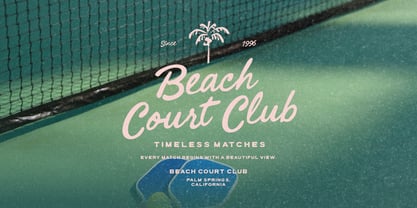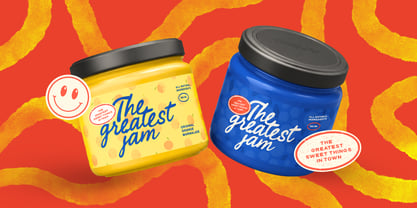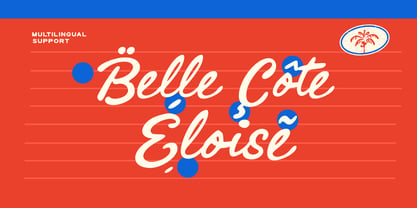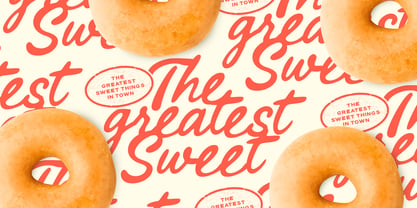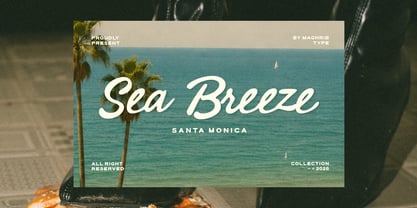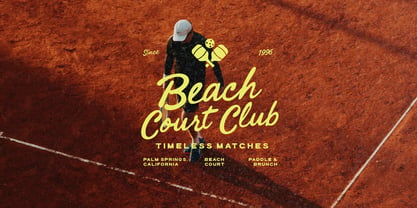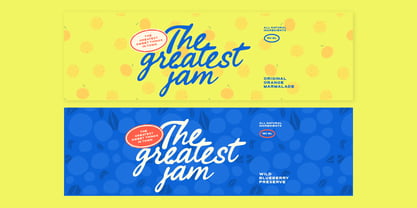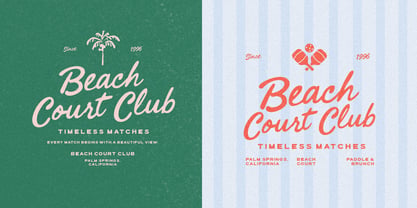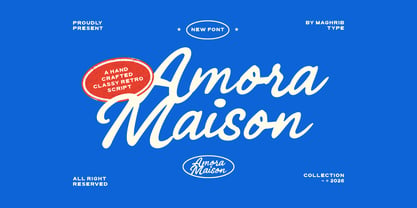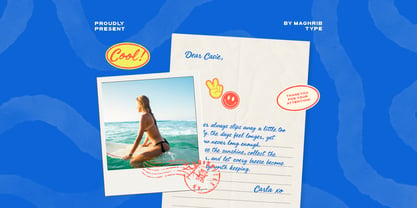
Amora Maison
Die Schriftfamilie Amora Maison wurde von Rizky Setyaludin entworfen und von Maghrib Type veröffentlicht. Amora Maison enthält 2 Stile und Familienpaketoptionen. Mehr über diese Familie
Amora Maison is a handcrafted retro font duo that blends an expressive vintage script with a clean geometric sans serif. Inspired by nostalgic French café signage, classic advertising, and timeless mid-century lettering, this duo captures warmth, elegance, and personality in every character.
The script features smooth flowing connections, rounded terminals, and carefully balanced strokes that create an authentic handwritten feel. Paired with a bold yet minimal sans serif, Amora Maison gives designers the flexibility to build beautiful typography with effortless hierarchy and contrast.
Whether you're creating branding, packaging, editorial layouts, logos, social media graphics, or lifestyle products, Amora Maison delivers a sophisticated retro aesthetic that feels both classic and contemporary.
Designed with versatility in mind, the script and sans serif complement each other perfectly, making it easy to create professional compositions for both print and digital projects.